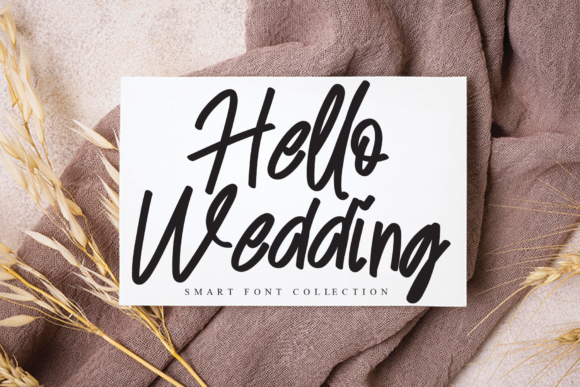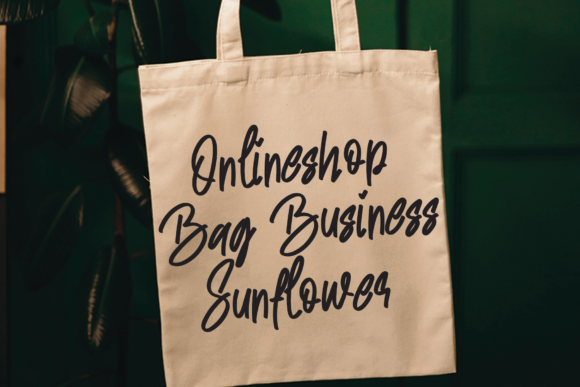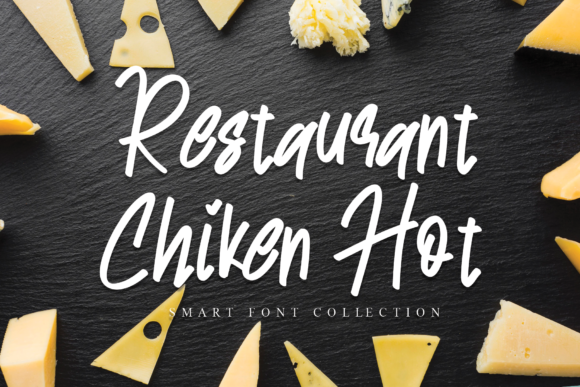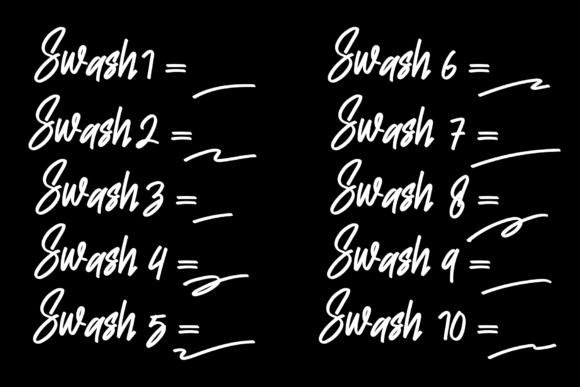
The Perfect Blend of Elegance and Whimsy: Amettarilla Font
Have you ever been sipping coffee on a lazy Sunday morning, flipping through a beautifully designed wedding invitation, and suddenly felt inspired to create something breathtakingly beautiful? That’s exactly what happened to me when I stumbled upon the Amettarilla Font. Its elegant script style instantly captured my heart, and I knew I had to share it with fellow designers.
Amettarilla Font is a stunning script font that adds a touch of handwritten charm to any design project. From wedding invitations to business cards, its versatility knows no bounds. Whether you’re a seasoned designer or just starting out, Amettarilla Font is a valuable addition to your toolkit. Its unique blend of elegance and whimsy makes it a perfect choice for any project that requires a personal touch.
Amettarilla Font Key Features
- Unique Characteristics: A unique blend of modern and vintage elements, with intricate details and ornate flourishes
- Character Count: Over 1000 glyphs, including international characters and symbols
Amettarilla Font Review
Overall, I think the Amettarilla font is a beautiful, elegant addition to any design project. ✨ The flowing curves and delicate lines make it perfect for creating a sophisticated and refined atmosphere. ✨ The font’s versatility is another major plus, as it can be used for a wide range of applications, from headings to body text.
- Great for creating a luxurious or vintage feel
- Works well in both digital and print designs
- Highly customizable to suit your design needs
However, there are a few limitations to consider. ⚠️ The Amettarilla font can be quite dense, which may make it difficult to read at small sizes. Additionally, the font’s complexity may lead to slower rendering times in some software.
Despite these limitations, I’m thoroughly impressed with the Amettarilla font. It’s a unique and beautiful addition to any designer’s toolkit. With a little creative problem-solving, you can overcome the font’s limitations and unlock its full potential.
In conclusion, I highly recommend the Amettarilla font to anyone looking to add a touch of elegance to their designs.
Tips for Getting the Most Out of Amettarilla
For best results, use Amettarilla in bold or italic styles to add emphasis to your text.
Use Amettarilla in conjunction with other fonts to create a unique and eye-catching typography style.
Common Use Cases for Amettarilla
Amettarilla is ideal for use in:
Designing elegant and sophisticated logos.
Creating eye-catching headings and titles.
Adding a touch of sophistication to business cards and resumes.